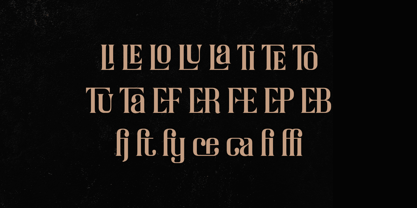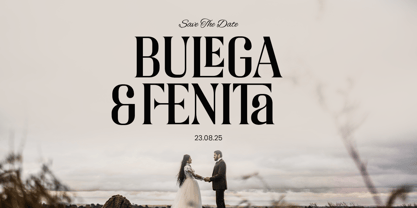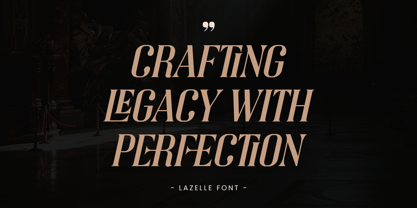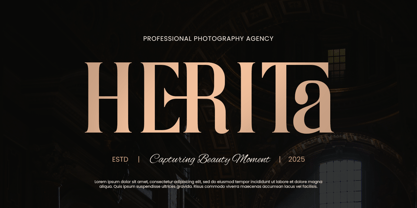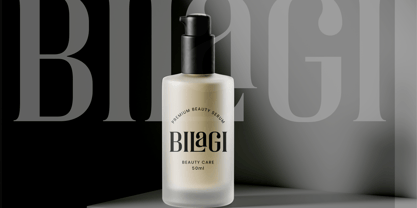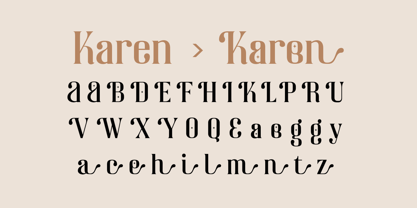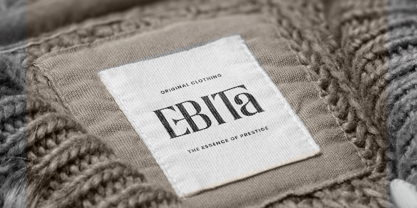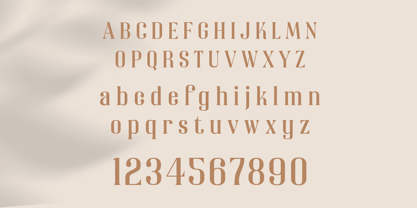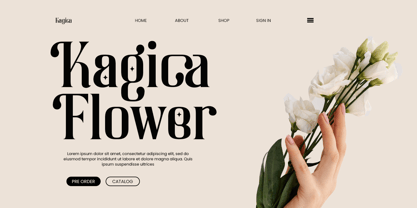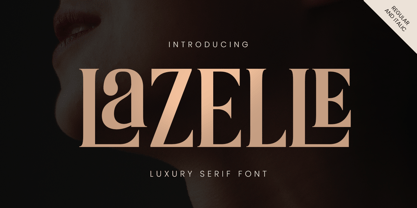
The Lazelle Font Family was designed by Sigit Ananta and published by Annivers Type Studio. Lazelle contains 2 styles and family package options. More about this family
Lazelle is a modern serif font designed to captivate with its striking contrast. Featuring bold thick strokes paired with delicate thin lines and unique proportions of tall and short characters, Lazelle creates a sophisticated rhythm and visual intrigue. Ideal for magazines, wedding stationery, premium products, and artistic projects, it adds character and elegance to every detail. Its expressive style shines in both minimal layouts and bold compositions, making it essential for designers who value creativity with class.
Designers: Sigit Ananta
Foundry: Annivers Type Studio
Lazelle